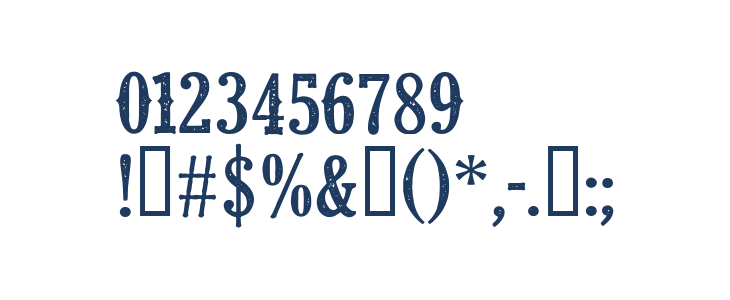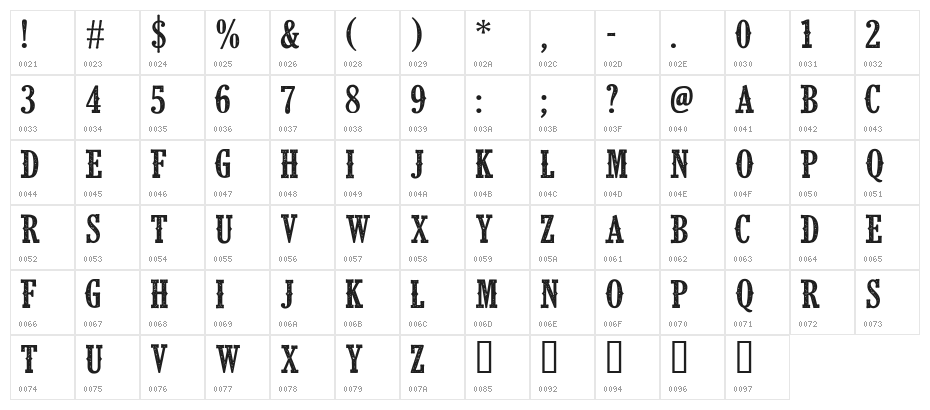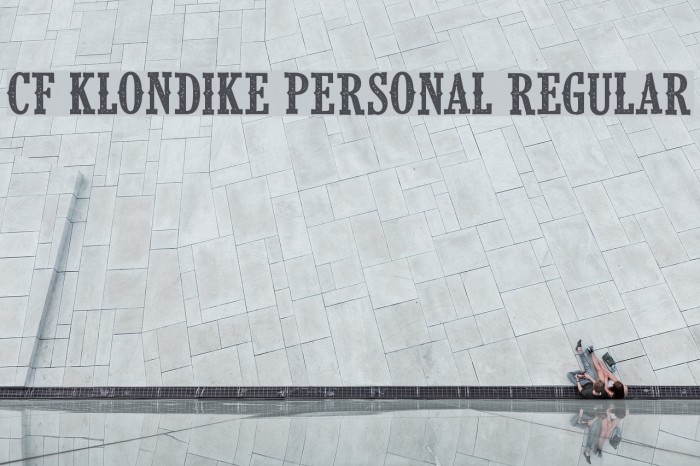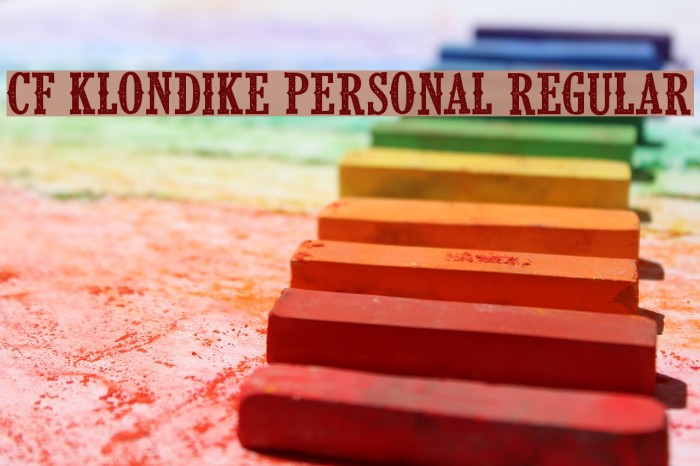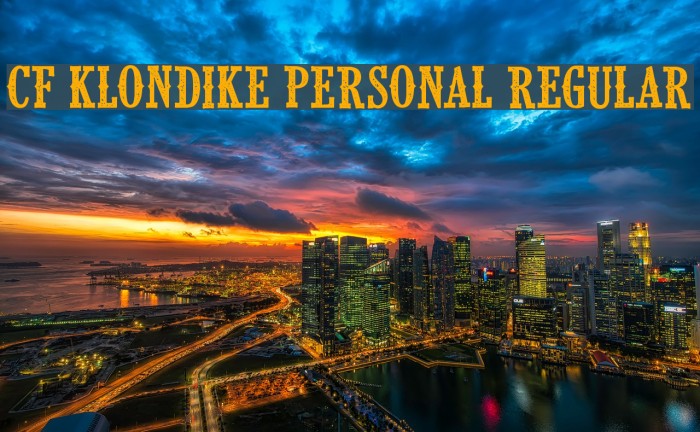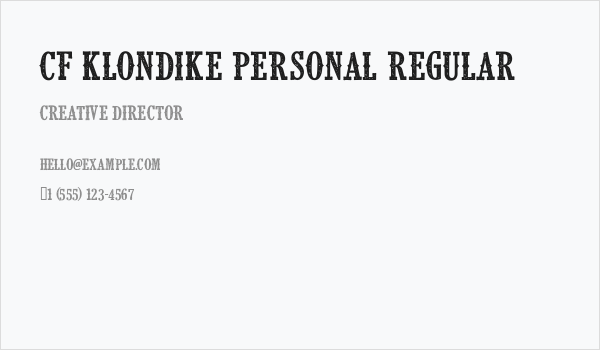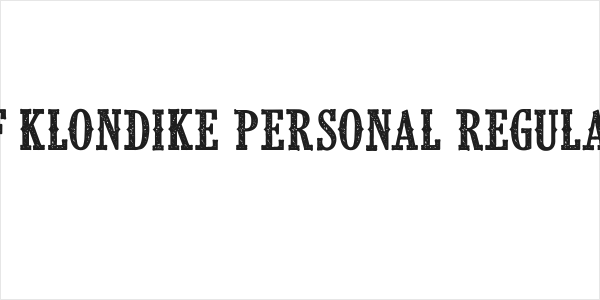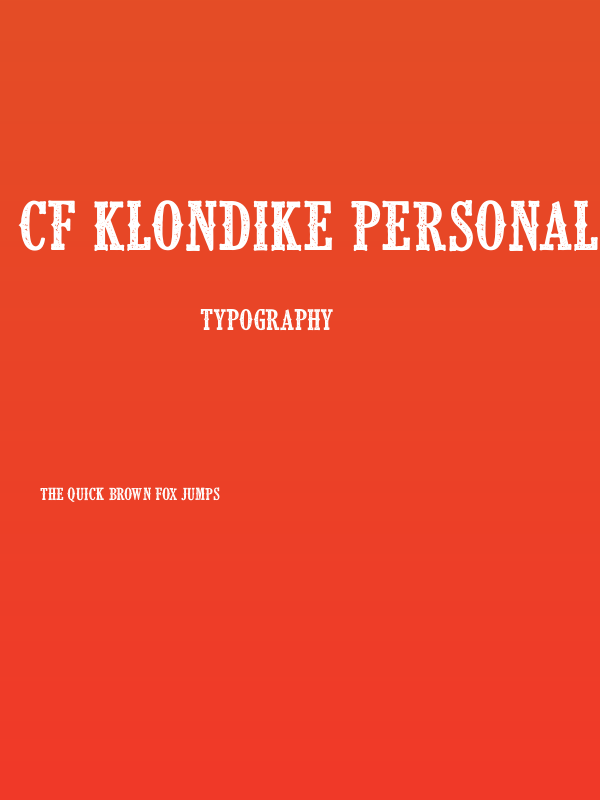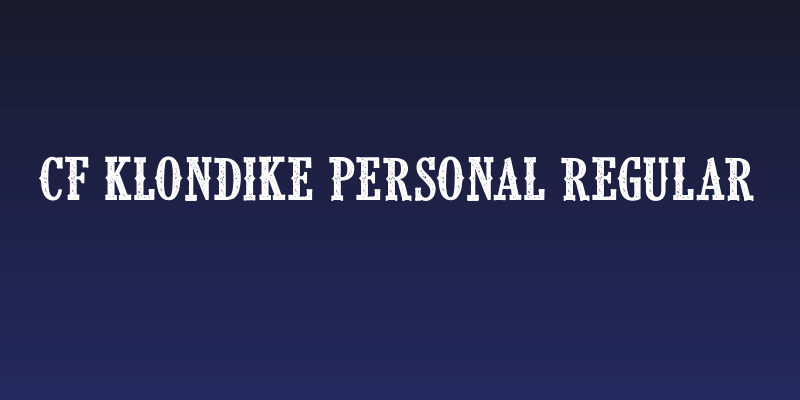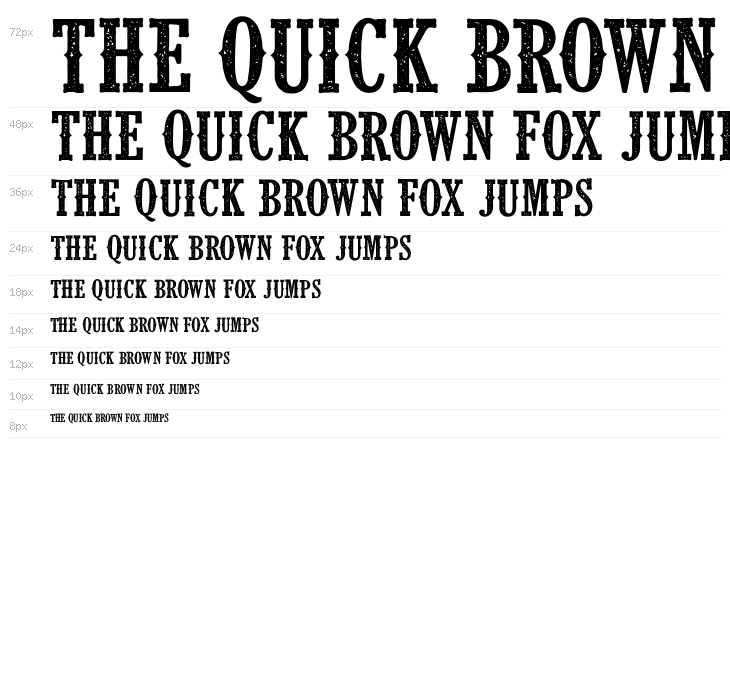
CF Klondike PERSONAL Regular Font
CF Klondike PERSONAL Regular Description
This font features a bold, decorative style with a distressed texture that gives it a vintage, rugged appearance. The characters are serifed, with thick and thin strokes that create a medium contrast. The distressed effect adds a unique, worn look, making it ideal for projects that require a rustic or antique feel. The uppercase and lowercase letters are well-proportioned, and the numerals and special characters maintain the same stylistic elements, ensuring consistency across different uses. The font's boldness and texture make it stand out, perfect for eye-catching designs.
| Proposed Projects | Ideal for vintage-themed posters, logos, branding, and packaging designs that require a rustic or antique touch. |